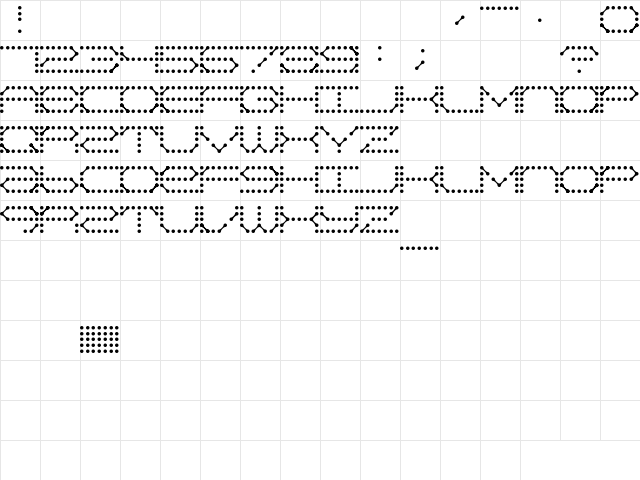
QZ Teletype Regular
Design Context for QZ Teletype Typeface
QZ Teletype is a composed and adaptable typeface that performs quietly and consistently across a wide range of design contexts.